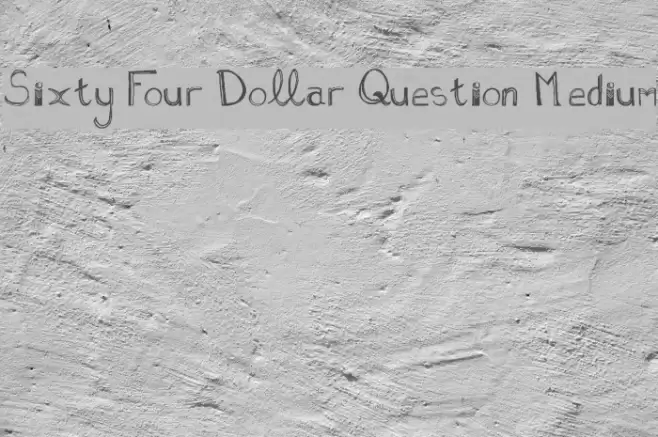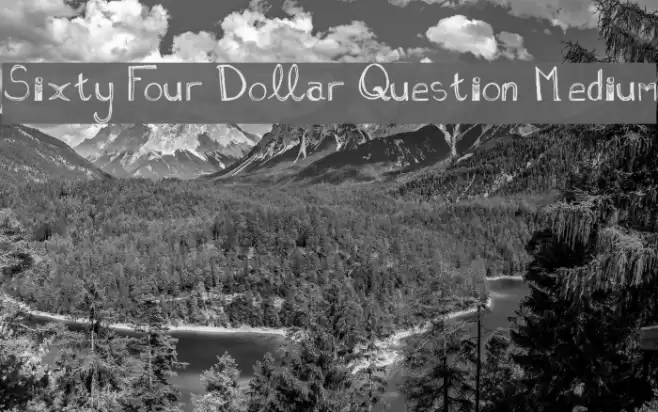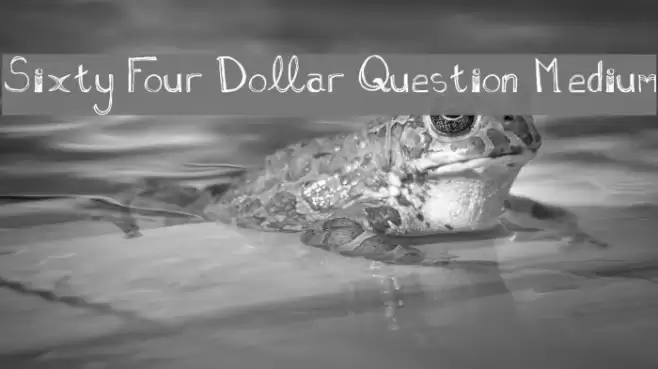
Sixty Four Dollar Question Medium Font
Sixty Four Dollar Question Medium Description
This font exhibits a playful and eclectic style, characterized by its hand-drawn appearance and varying stroke widths. Each character is uniquely crafted, giving the font a whimsical and artistic feel. The uppercase letters are bold and expressive, with some featuring decorative elements such as stripes or dots. The lowercase letters maintain a similar quirky style, with exaggerated curves and angles. The numerals and special characters continue this theme, adding to the font's overall charm and individuality. This font is perfect for projects that require a touch of creativity and personality.
A playful, hand-drawn font with unique, artistic characters from Decorative fonts.
- Proposed Projects: Ideal for children's books, creative posters, and artistic branding.
- Overall Style: Whimsical, Artistic
- Use Case: Headlines, Creative projects, Artistic branding